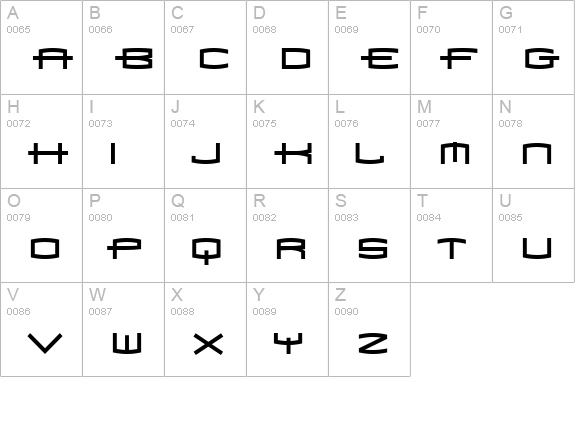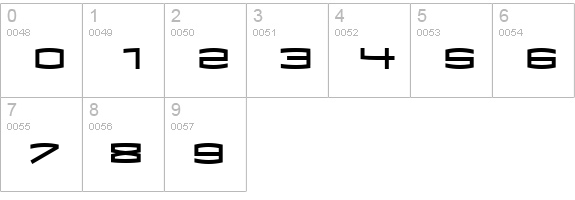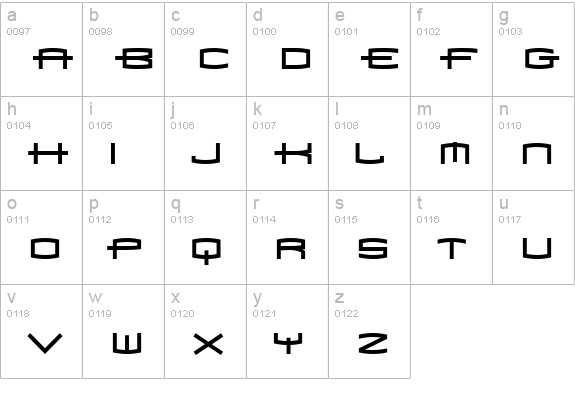
1979 Font Details
Introducing 1979 font - a nostalgic and stylish typeface that harkens back to the design trends of the late 1970s. With its retro vibes and bold, geometric shapes, this font is perfect for giving your designs a vintage flair. The 1979 font is versatile and can be used for a variety of projects, from posters to branding to social media graphics. Best of all, the 1979 font is completely free to download at FontsMarket.com! This means you can easily add this eye-catching typeface to your collection without breaking the bank. Don't miss out on the opportunity to elevate your designs with the unique charm of the 1979 font - download it today and let your creativity shine!